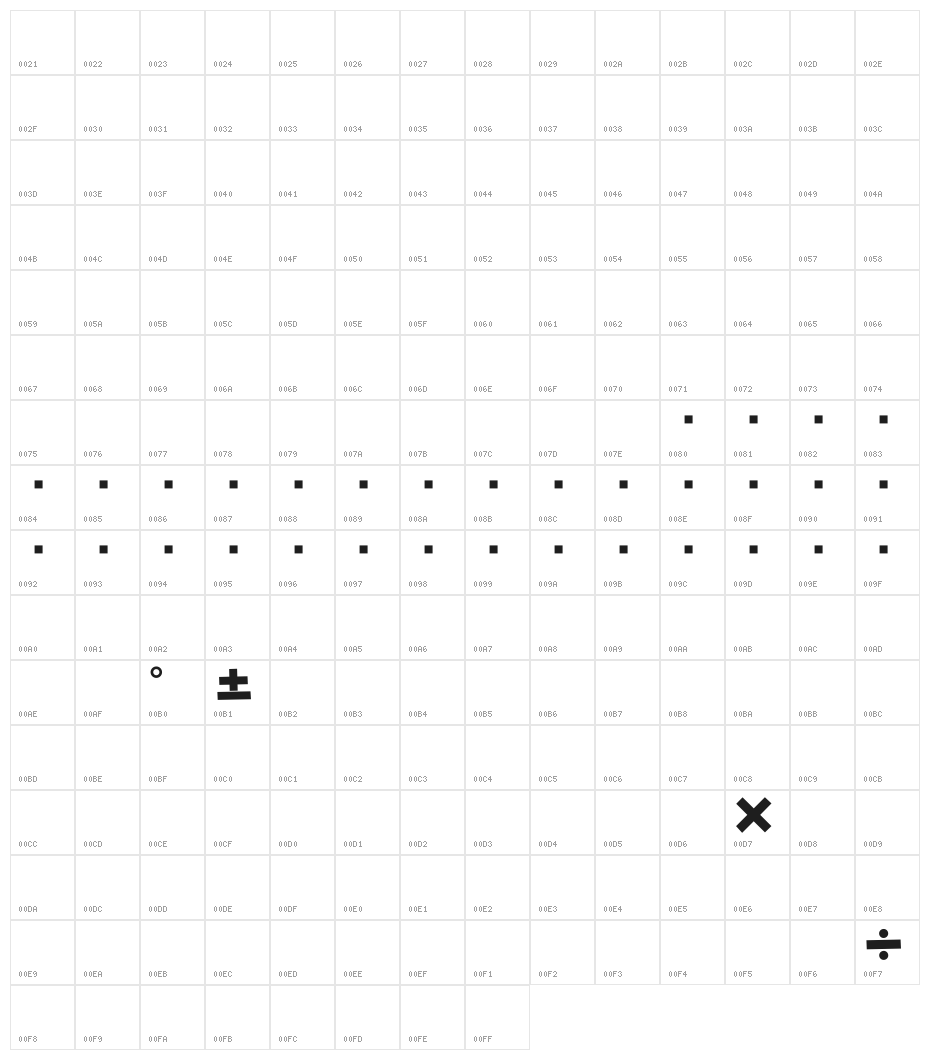
haramase_nyanko Font
haramase_nyanko Description
This font features a playful and whimsical design, characterized by its rounded and soft edges. The letters are evenly spaced, providing a clean and approachable appearance. The uppercase and lowercase letters maintain a consistent style, with a slight variation in size to distinguish between them. Numbers and special characters are designed to match the overall aesthetic, ensuring a cohesive look across all text elements. The font's simplicity and charm make it suitable for a variety of creative projects.
| Proposed Projects | Ideal for children's books, playful branding, greeting cards, and casual invitations. |